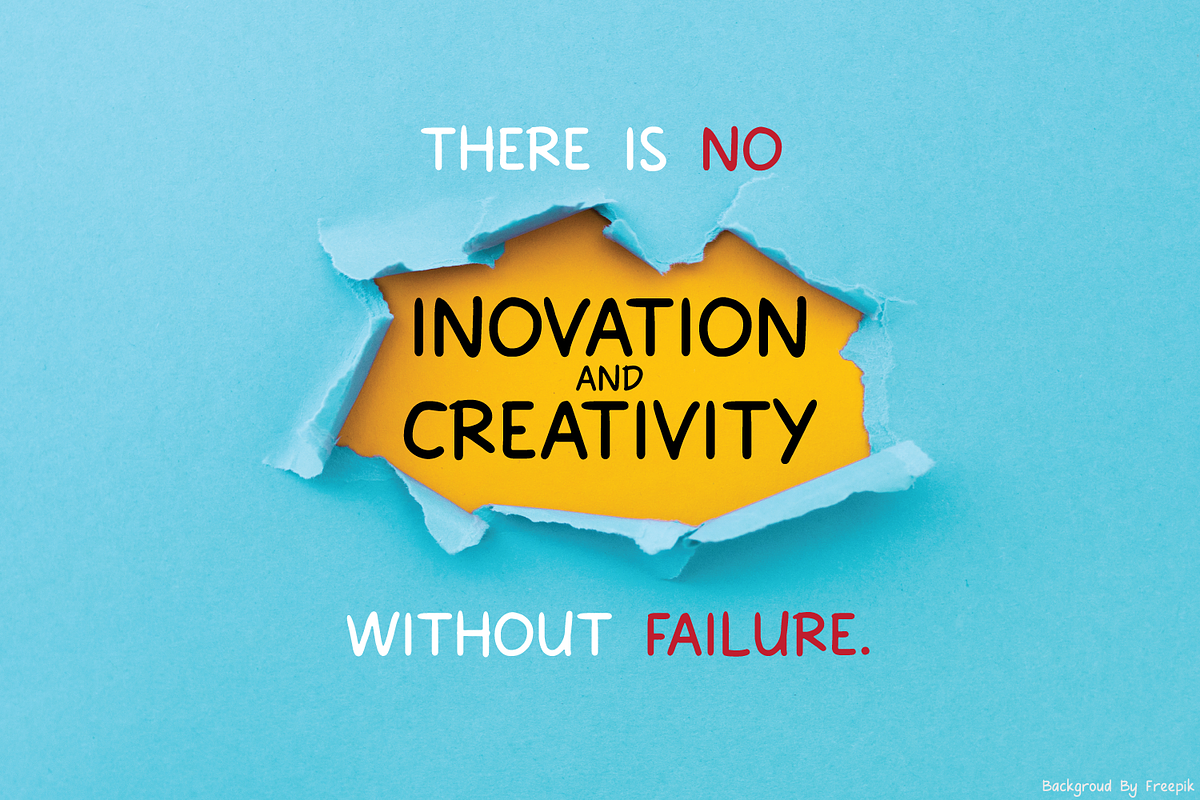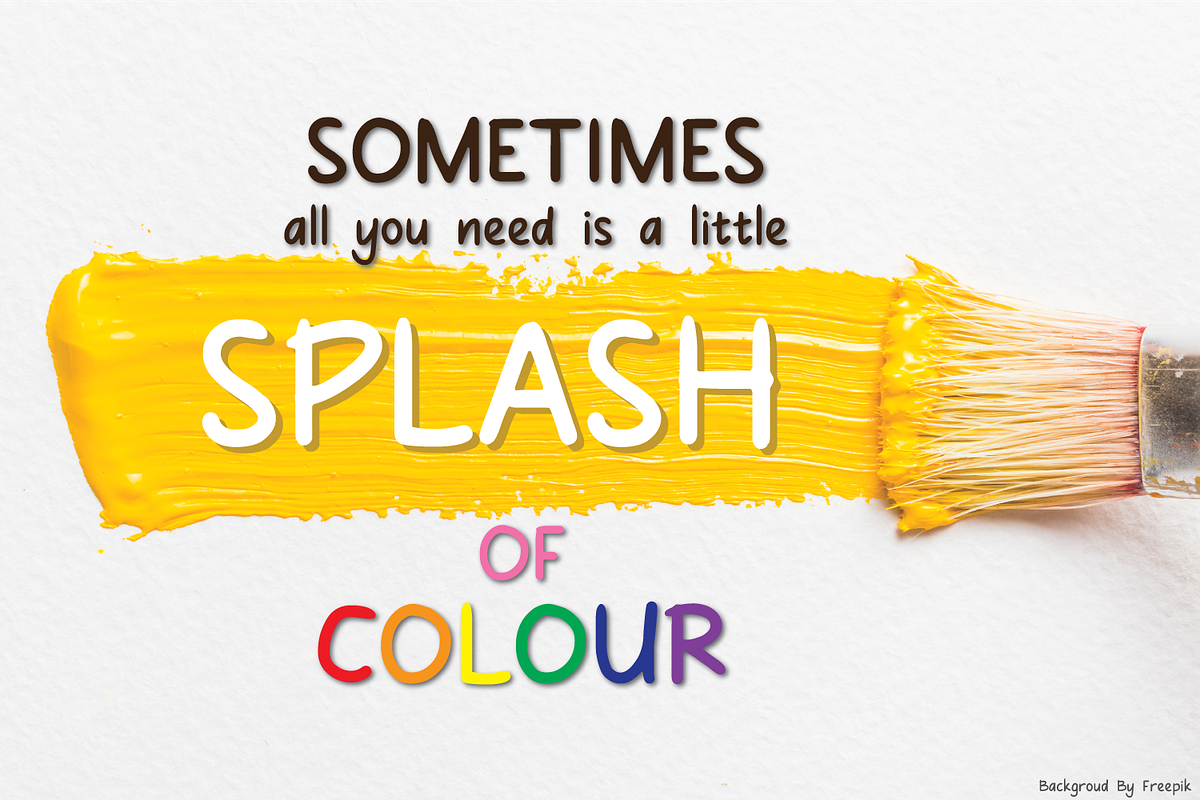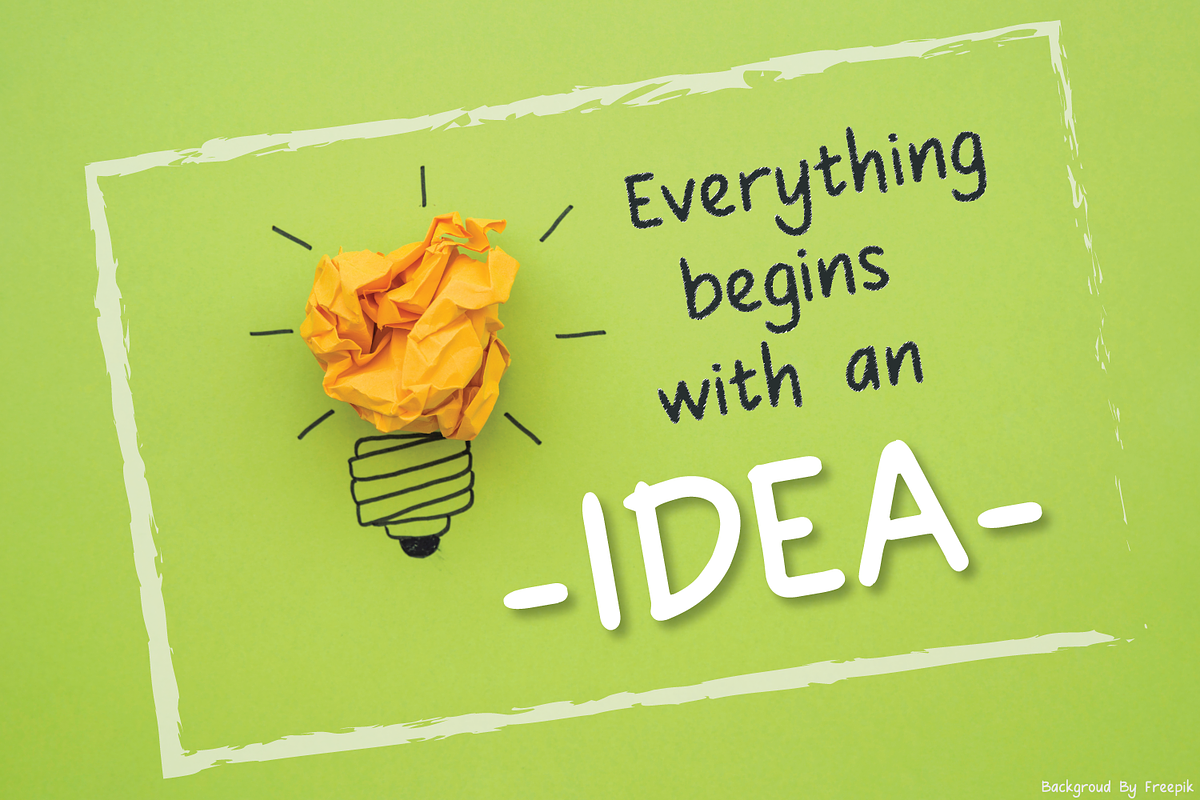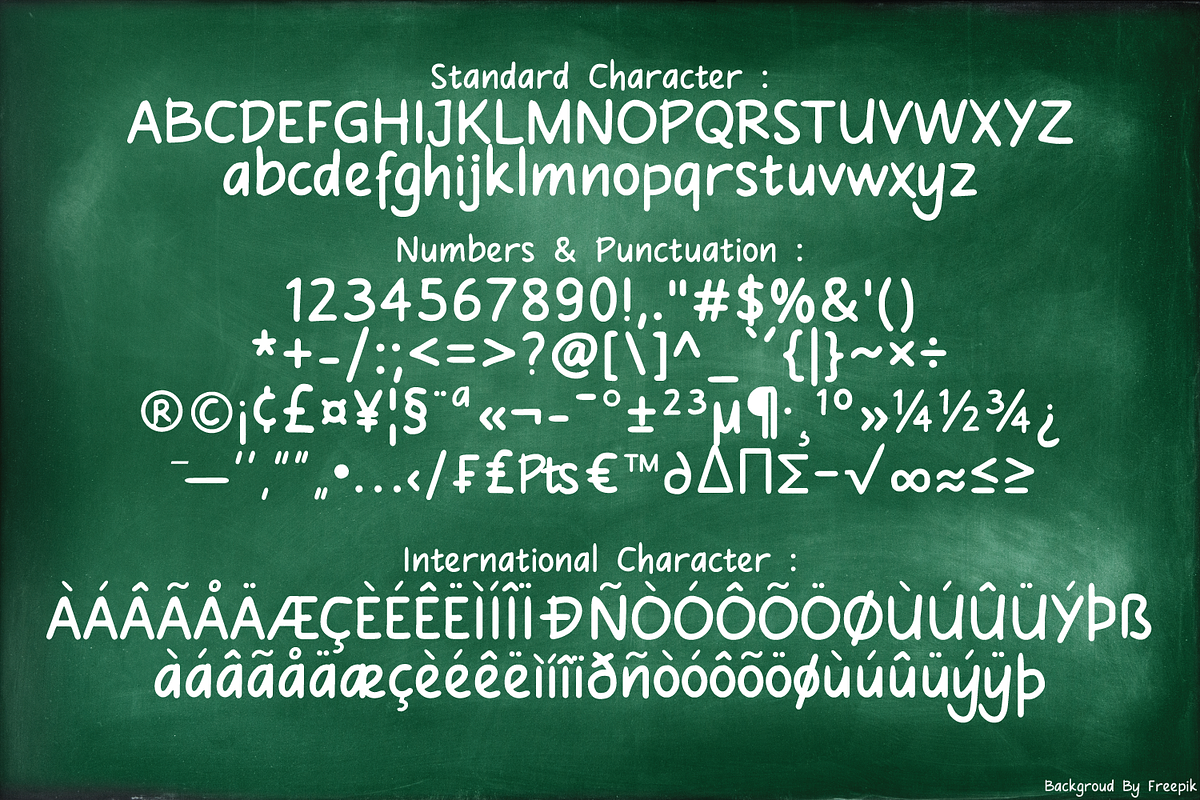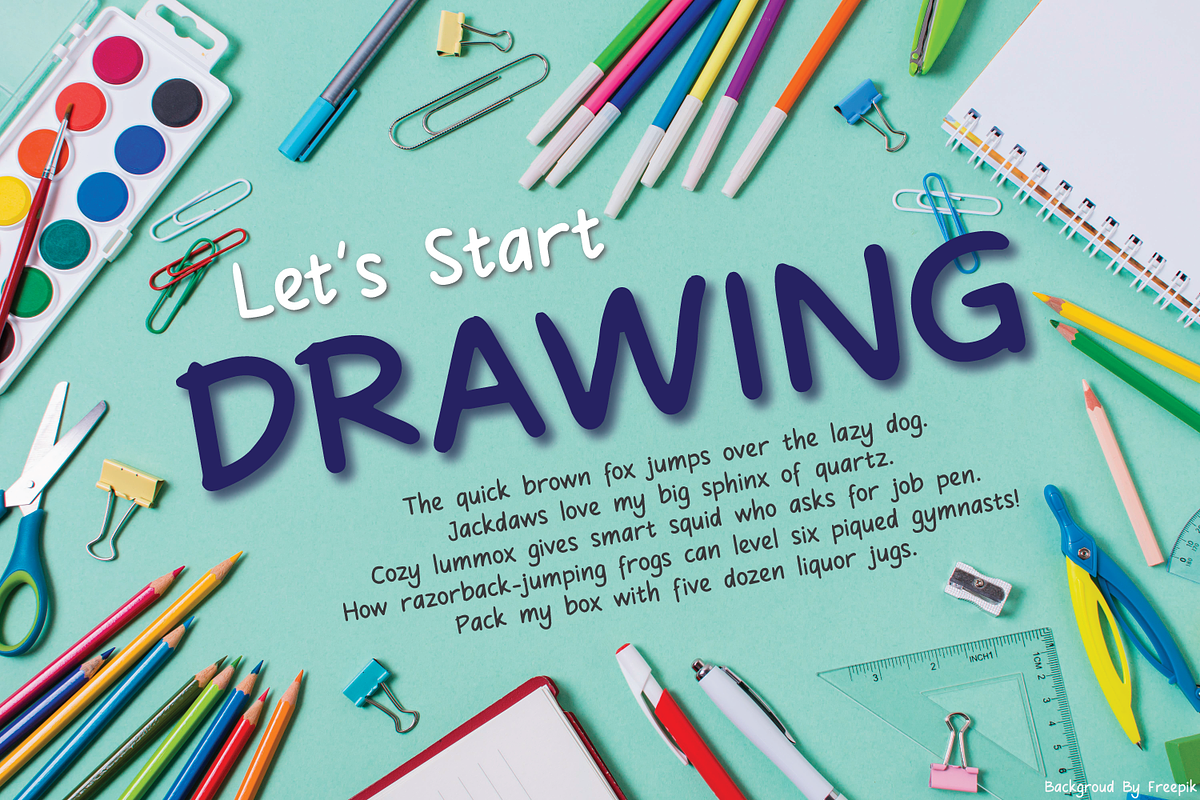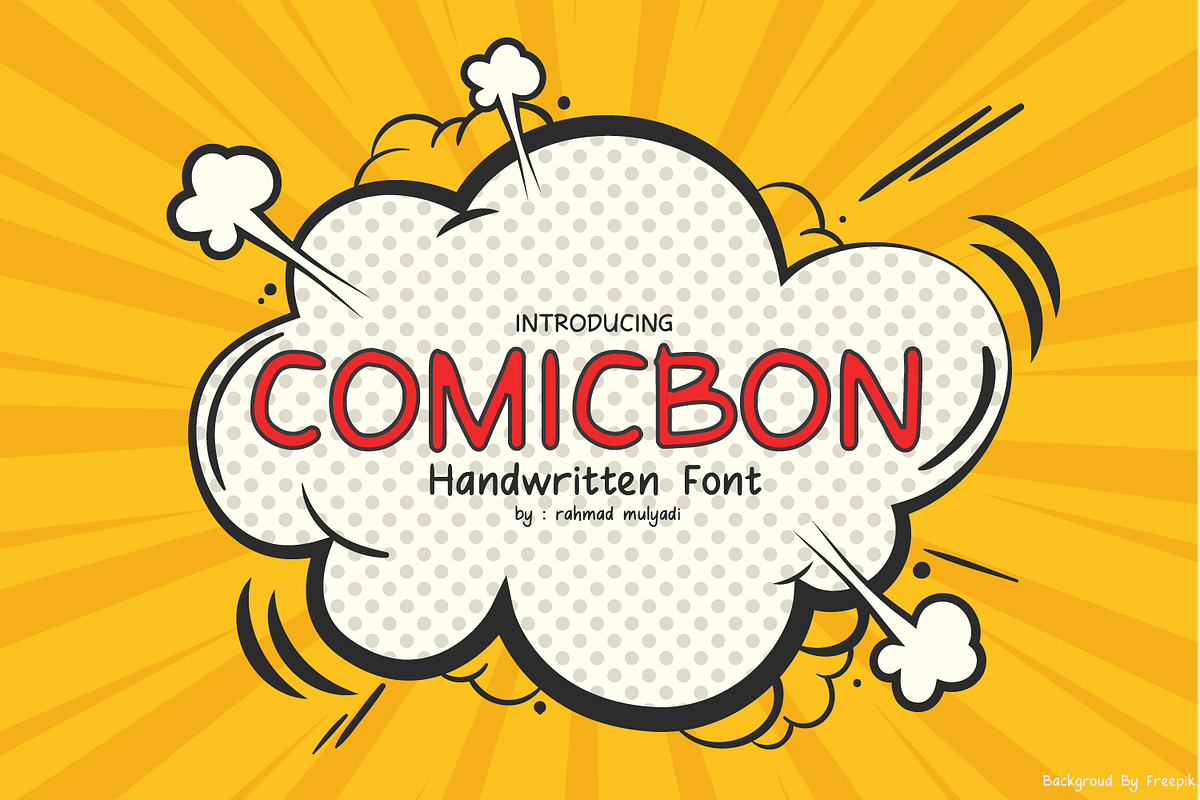
Comicbon
Comicbon is a simple and natural handwritten font. It is suitable for any branding, product packaging, invitation, quote, t-shirt, label, poster, logo that you wish to develop.